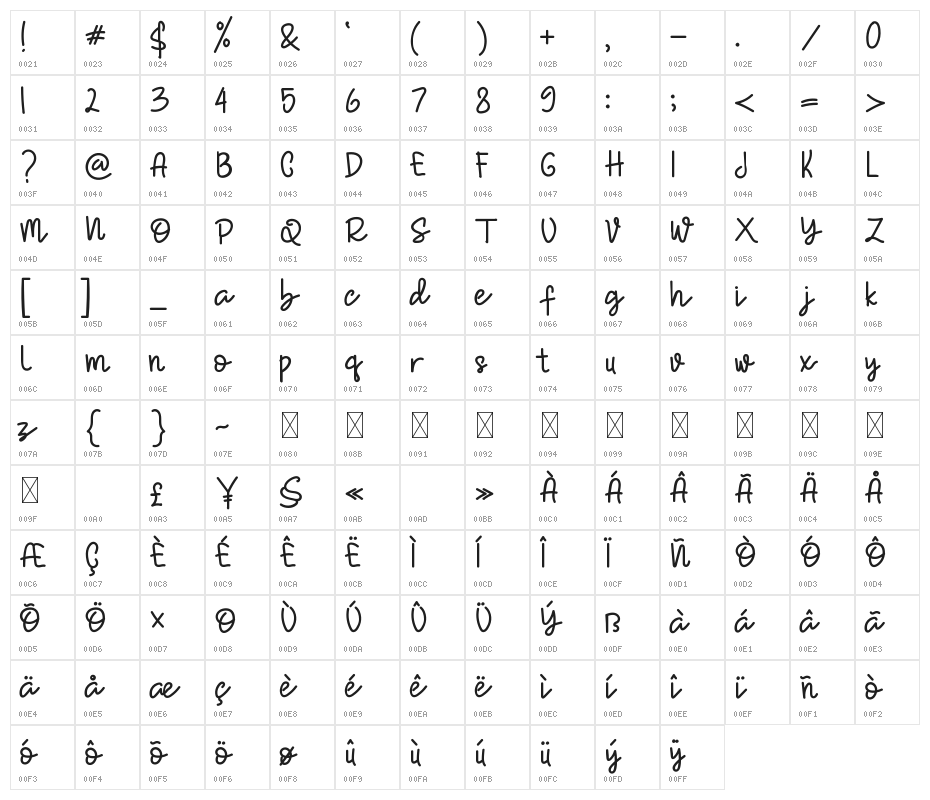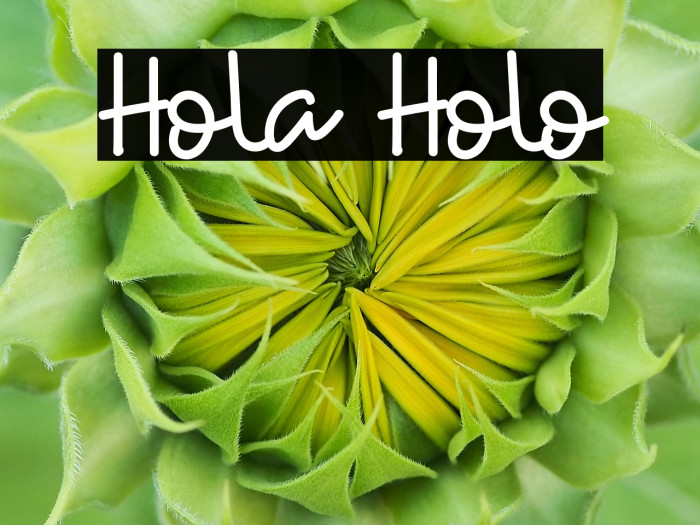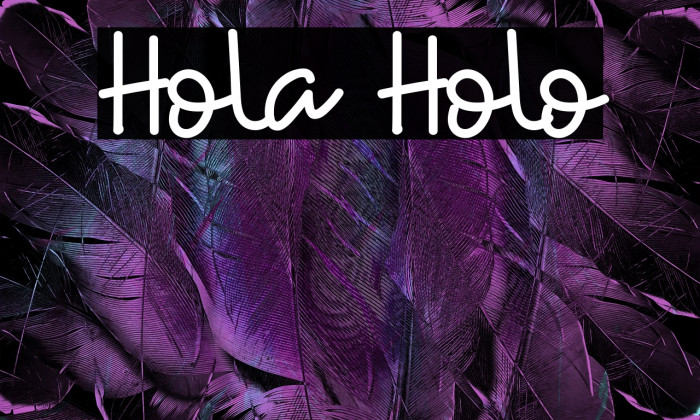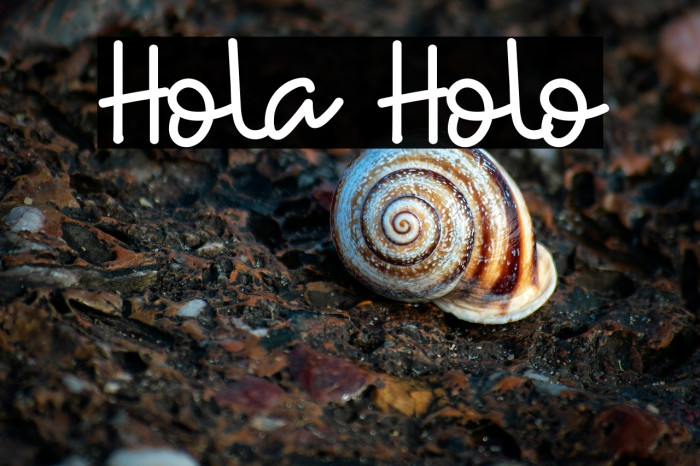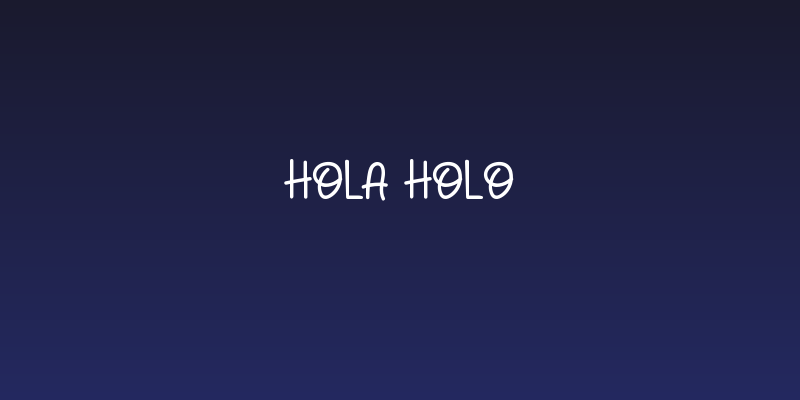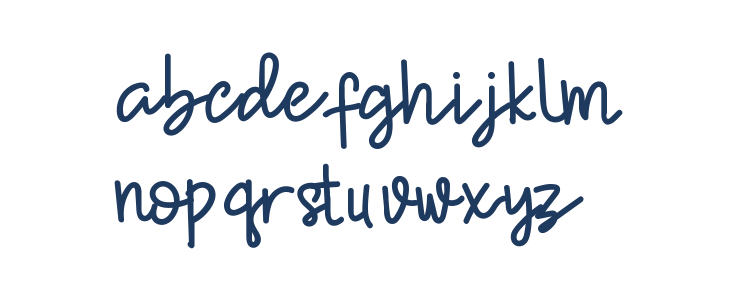
Hola Holo Font
Hola Holo Description
This playful and casual handwritten font features a smooth, flowing style with rounded edges and a consistent stroke width. The uppercase letters are bold and slightly wider, giving a friendly and approachable feel. The lowercase letters maintain a natural, cursive flow, enhancing the handwritten aesthetic. Numbers and special characters are designed with the same playful touch, ensuring consistency throughout. The font's overall appearance is informal and relaxed, making it ideal for projects that require a personal, human touch.
| Use Case | Logos, Headlines, Informal Text |
| Proposed Projects | Ideal for greeting cards, personal branding, social media graphics, and informal invitations. |